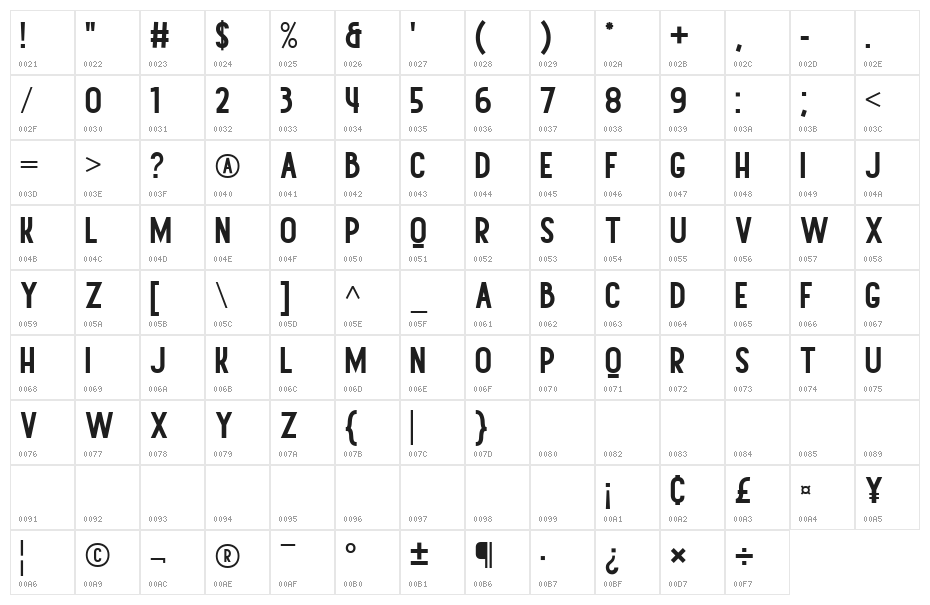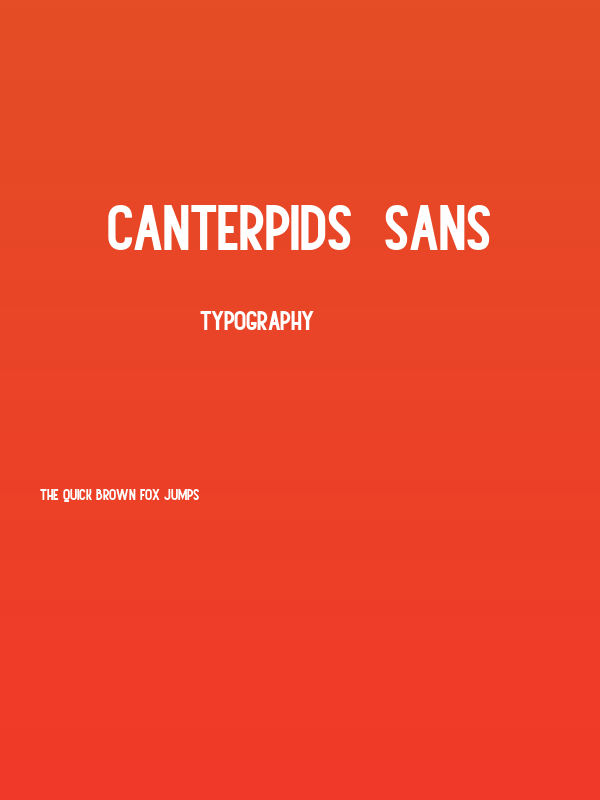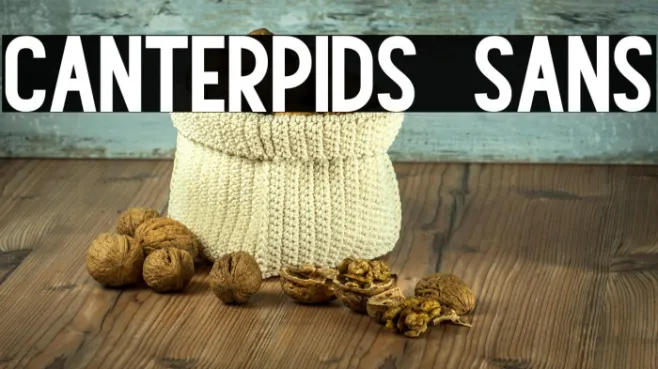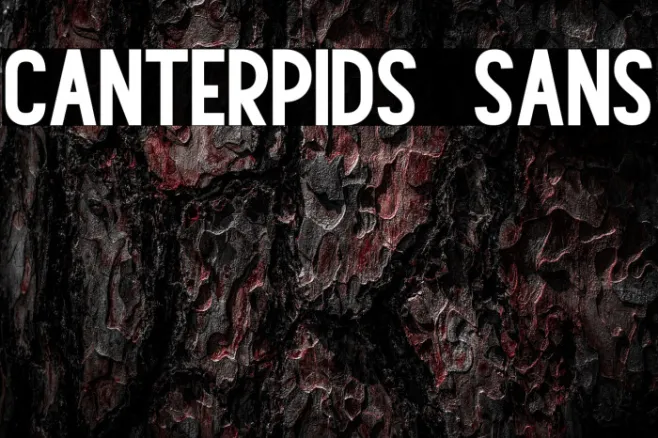
Canterpids Sans Font
This font exhibits a strong, bold presence with its thick, uniform strokes and clean lines. The characters are well-defined, showcasing a modern sans-serif style that emphasizes clarity and readability. The uppercase and lowercase letters maintain a consistent height and width, contributing to a balanced and cohesive appearance. The numerals are equally robust, ensuring they stand out clearly. Special characters are designed with the same attention to detail, making them easily distinguishable. Overall, this font is versatile, suitable for various design needs where a bold and modern look is desired.
| Use Case | Headlines, Logos, Advertising |
| Proposed Projects | Ideal for branding, advertising, headlines, and digital media where a strong, modern impression is needed. |